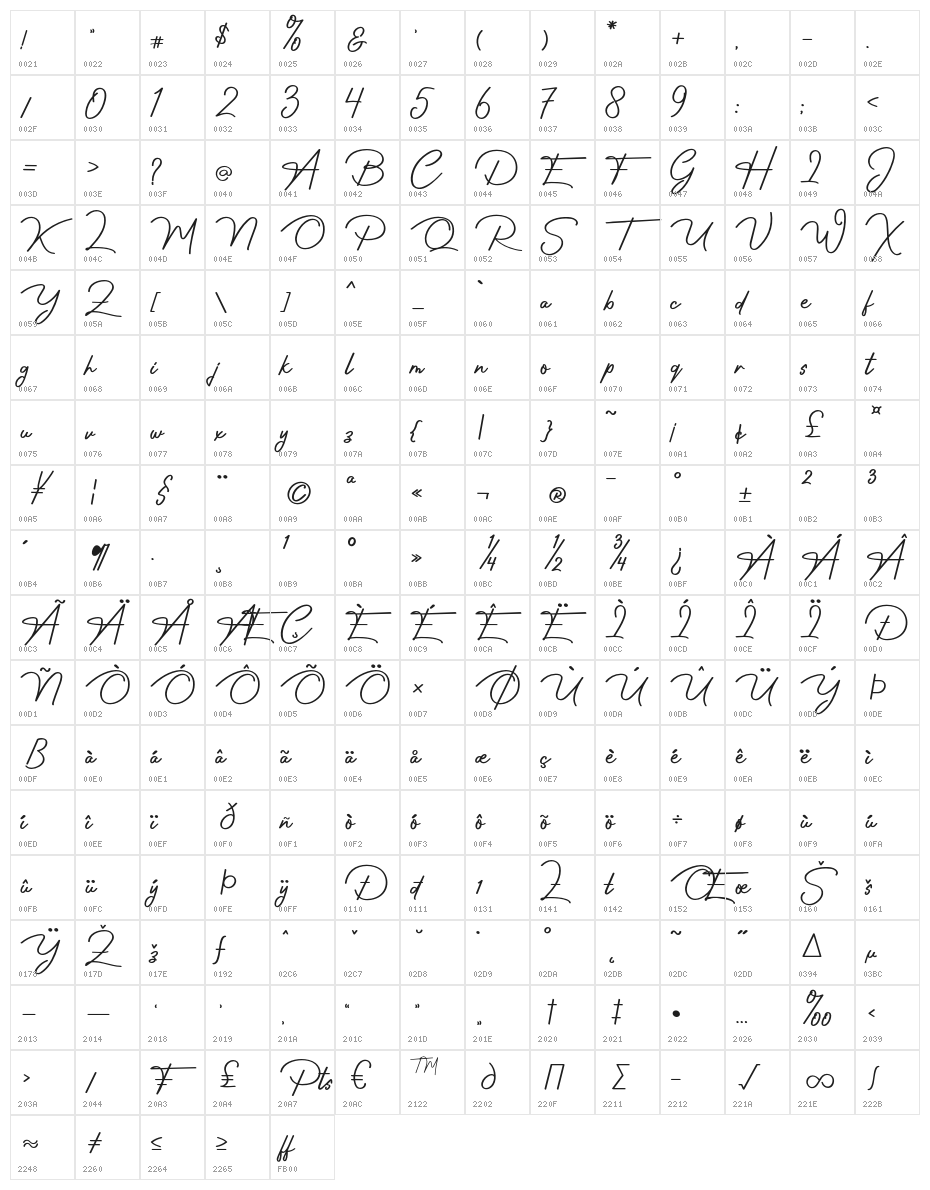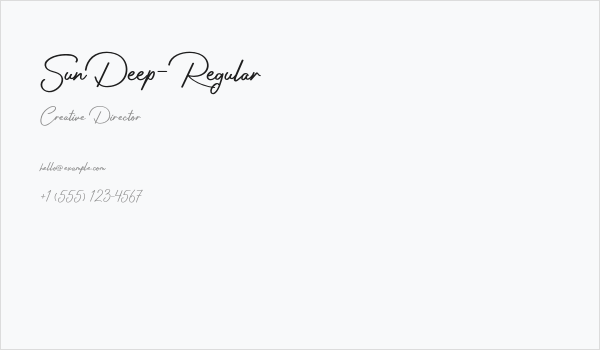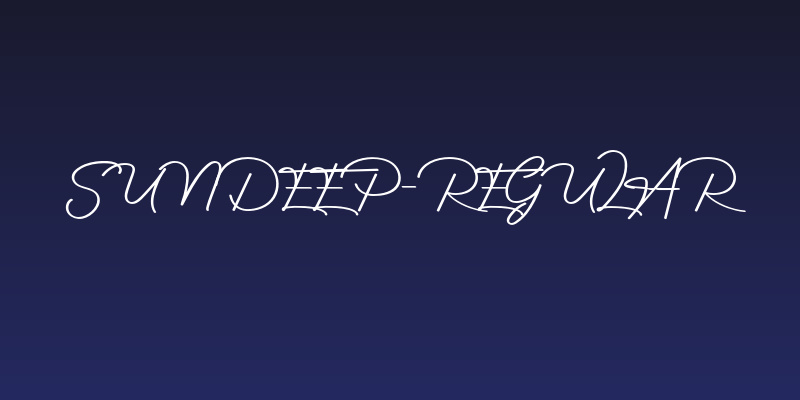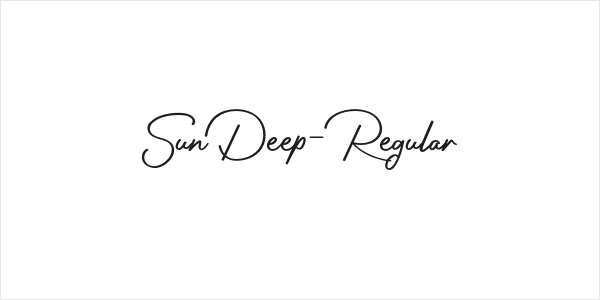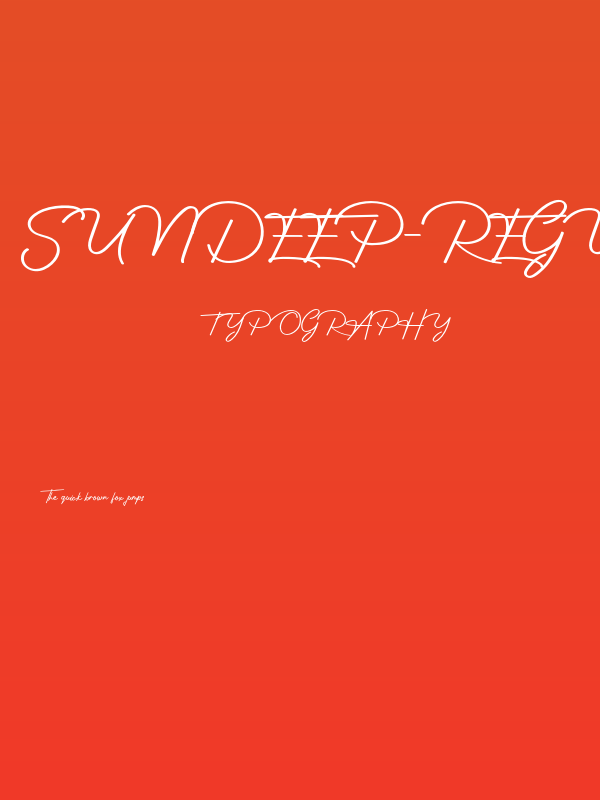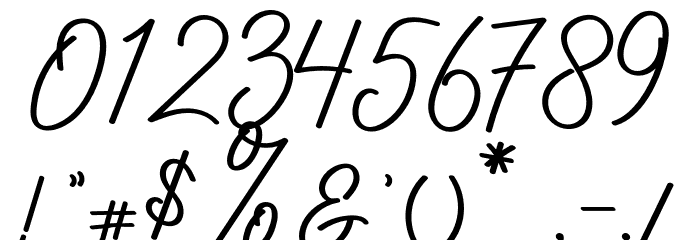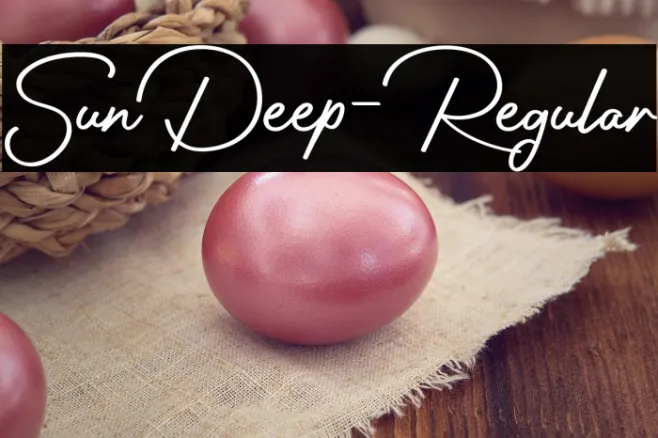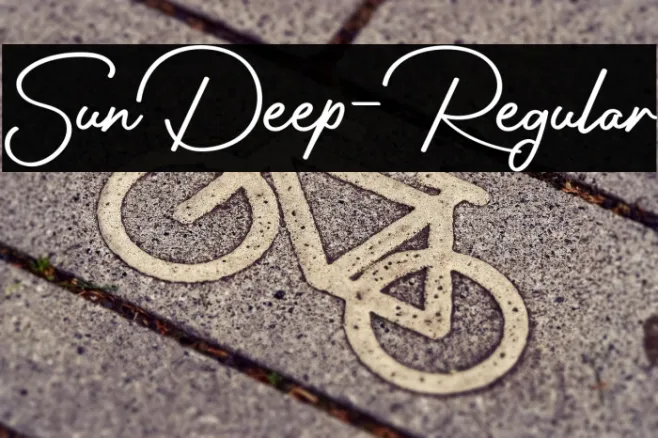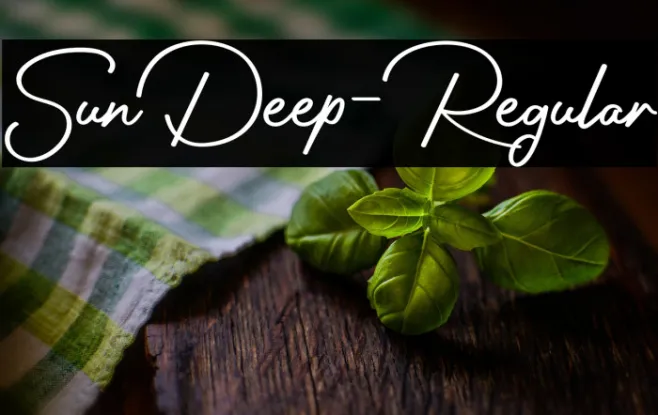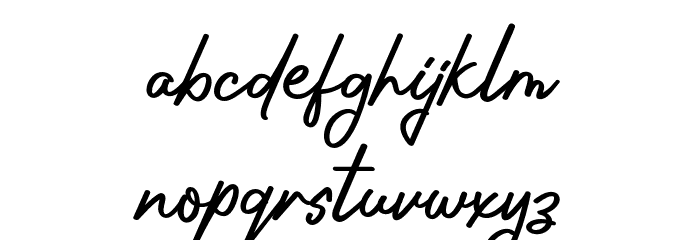
SunDeep-Regular Font
SunDeep-Regular Description
This font features a flowing, cursive style with elegant, sweeping lines that give it a handwritten appearance. The uppercase letters are particularly ornate, with loops and curves that add a touch of sophistication. The lowercase letters maintain a consistent flow, making the text appear connected and fluid. Numbers and special characters are designed to match the overall aesthetic, ensuring a cohesive look across all elements. The font's design is both stylish and readable, making it suitable for a variety of creative applications.